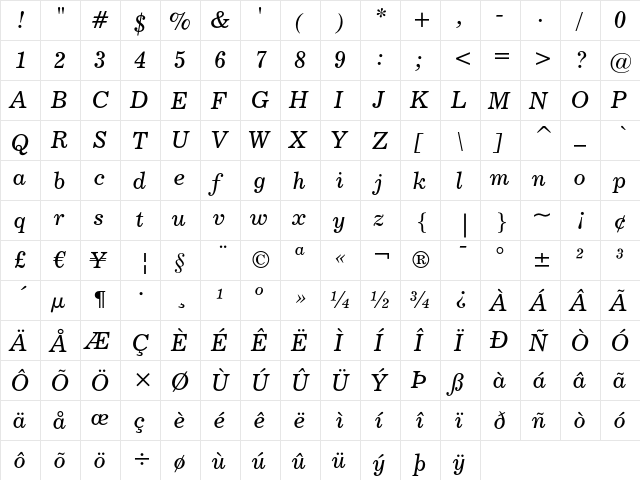
Century 731 Italic
Design Context for Century 731 Typeface
Century 731 is a composed and adaptable typeface that performs quietly and consistently across a wide range of design contexts. The slanted form adds forward momentum and visual energy.
Pro Tip: Try Century 731 for annotation and caption copy alongside an upright companion — the contrast in angle creates a dynamic but ordered typographic system.